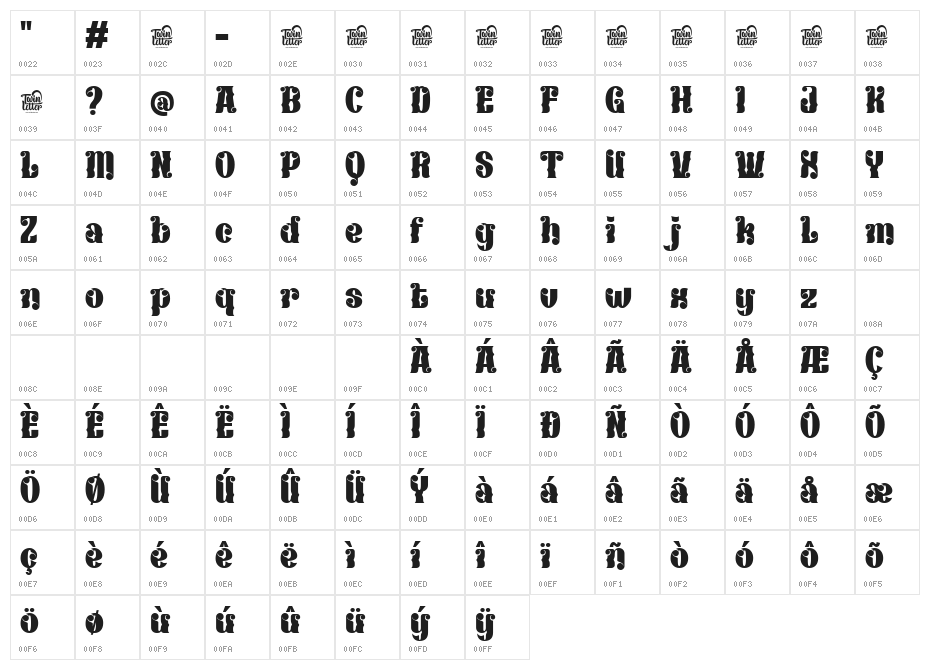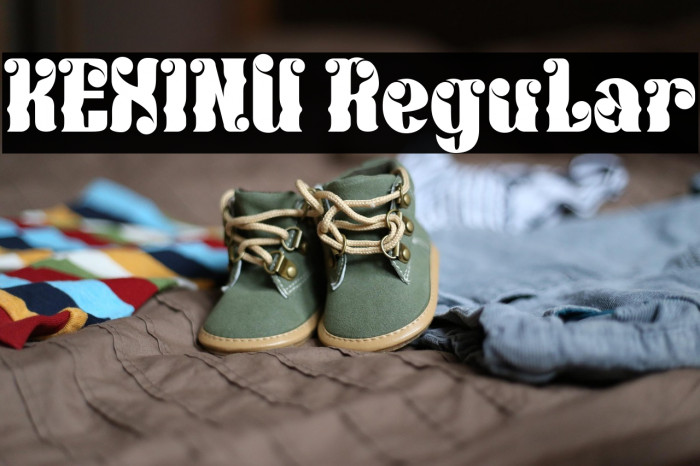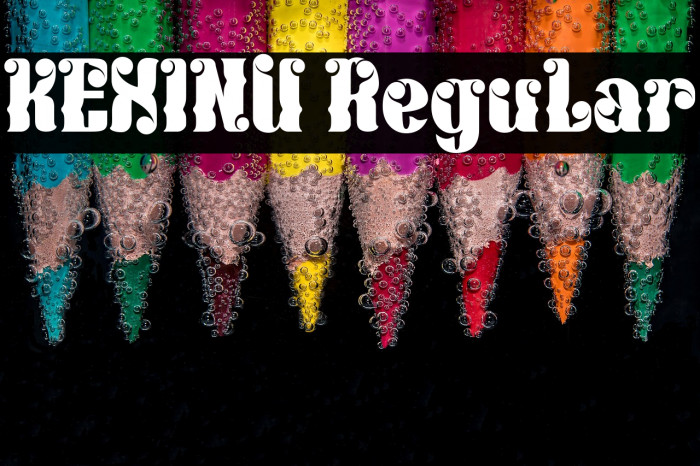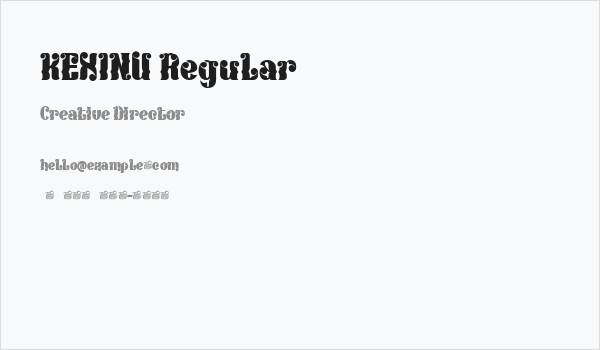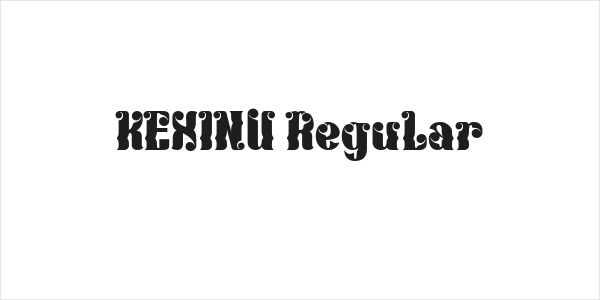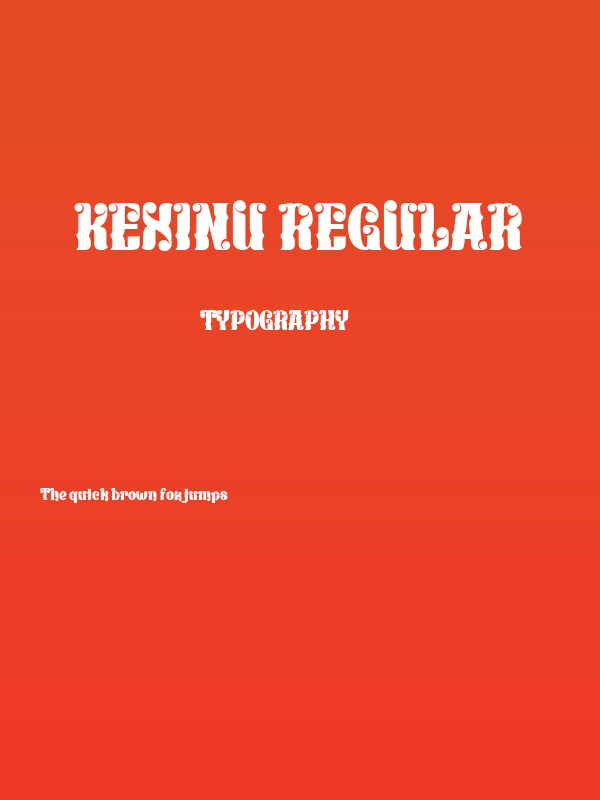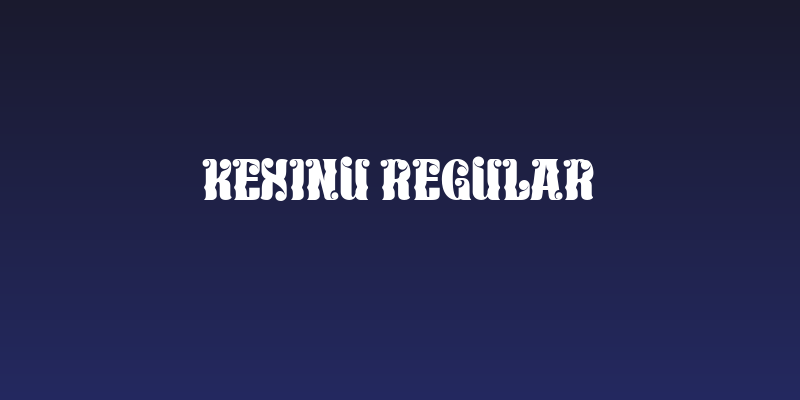
KEXINU Regular Font
KEXINU Regular Description
This font exhibits a bold and decorative style with unique, playful elements. The characters are designed with thick strokes and rounded edges, featuring distinctive curls and loops that add a whimsical touch. The uppercase and lowercase letters maintain a consistent weight and style, creating a cohesive look. The numbers and special characters are equally bold, ensuring they stand out in any design. This font's playful and artistic nature makes it suitable for creative projects that require a standout typeface.
| Use Case | Logos, Headlines, Posters |
| Proposed Projects | Ideal for branding, posters, and creative design projects that require a bold and artistic typeface. |